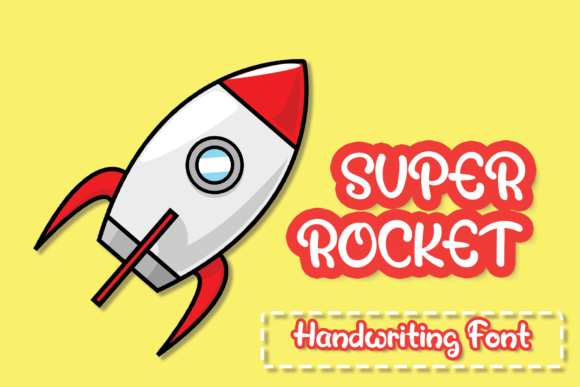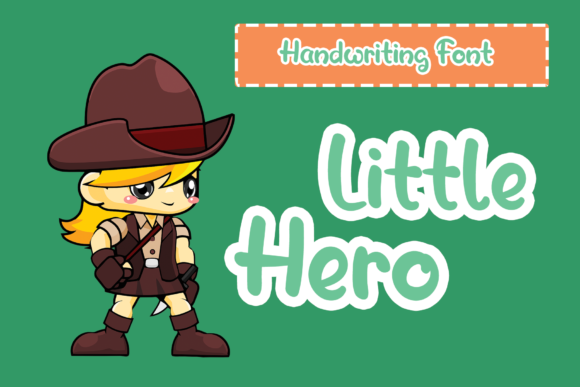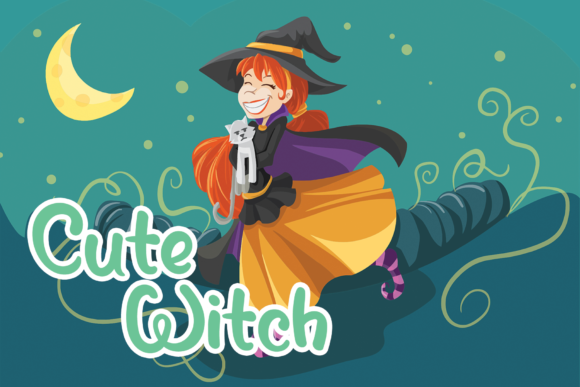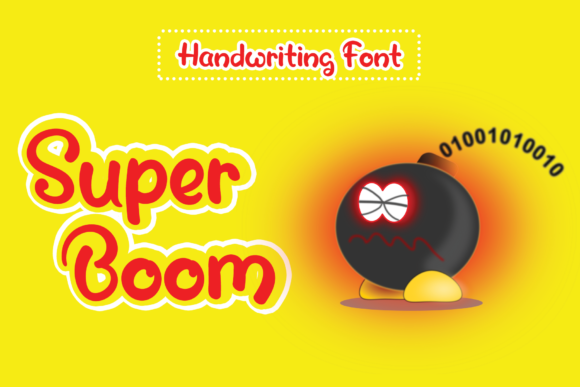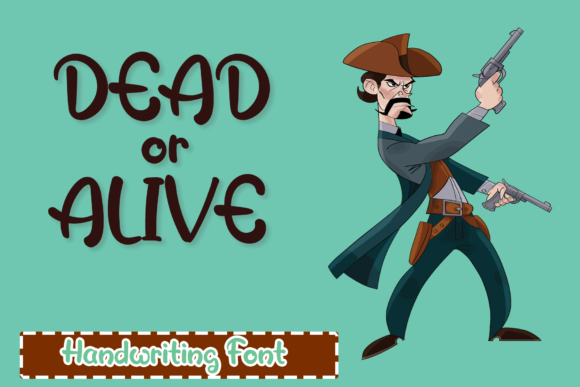
Super Rocket Font
About Super Rocket Font
Super Rocket is a stylish and modern handwritten font that adds a cool and round touch to your designs. With its smooth curves and unique letterforms, this font is perfect for fashion branding, editorial designs, and any project that requires a contemporary and eye-catching look.
The round and flowing shapes of Super Rocket give it a dynamic and energetic vibe, making it an excellent choice for projects that need a sense of movement and style. Whether you’re designing a logo, creating a magazine spread, or working on an advertising campaign, Super Rocket can add a fresh and fashionable touch to your design.
The clean and legible nature of Super Rocket ensures that your message is communicated clearly and effectively. Each letter has been carefully crafted to maintain readability, even at smaller sizes. This makes the font versatile and suitable for various applications, including body text, headlines, and captions.
Super Rocket’s cool and round letterforms make it stand out from traditional handwritten fonts, giving your designs a modern and unique look. The font’s rounded edges and smooth curves create a sense of elegance and sophistication, making it an excellent choice for projects that require a touch of refinement.
When using Super Rocket, you can confidently experiment with different letter spacing, scale, and color options to create visually engaging compositions. The font’s versatility allows you to adapt it to various design styles and themes, whether you’re going for a minimalist, bold, or playful aesthetic.
Overall, Super Rocket is a cool and round lettered handwritten font that brings a contemporary and fashionable vibe to your designs. Its clean and legible style, combined with its unique curves and cool character, make it a versatile choice for fashion branding, editorial designs, and more. Add Super Rocket to your projects with confidence, and enjoy the stylish results it brings to your designs.